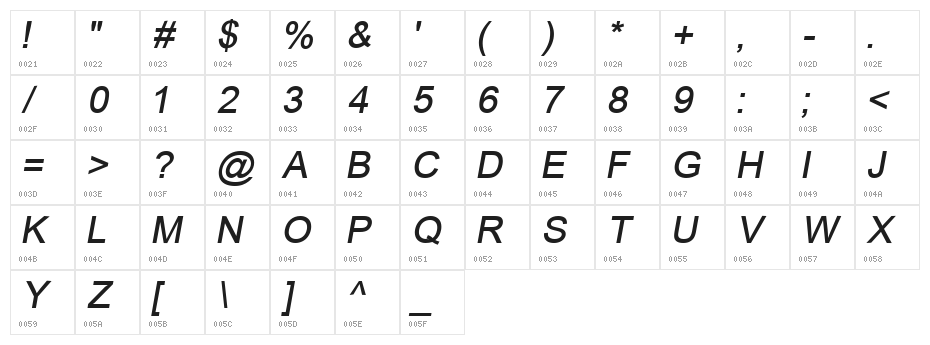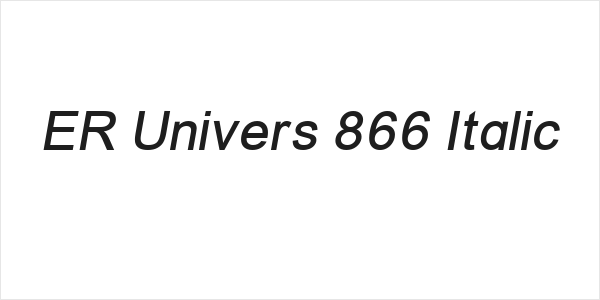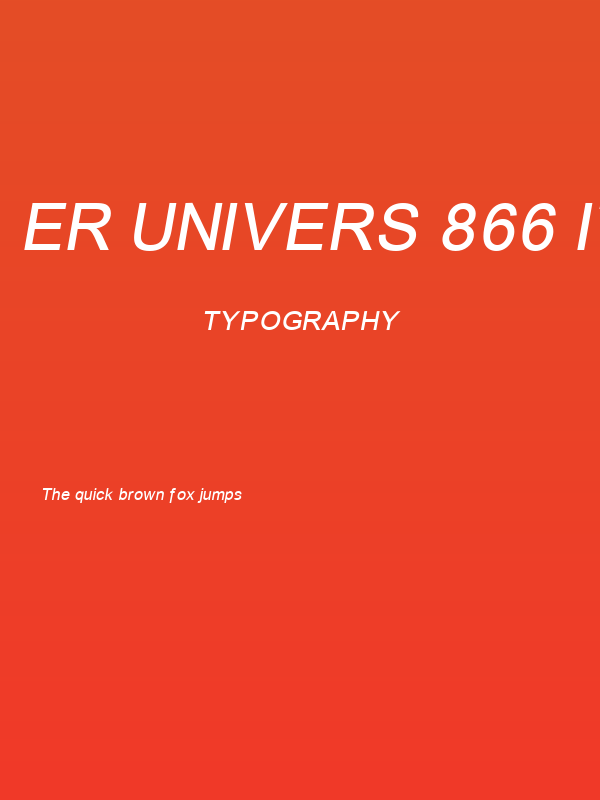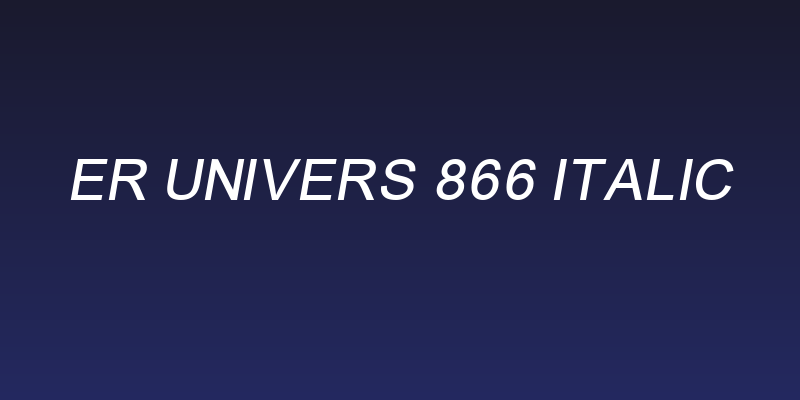
ER Univers 866 Italic Font
ER Univers 866 Italic Description
This font features a sleek and modern design with a slight italic slant, giving it a dynamic and forward-moving appearance. The characters are well-proportioned with a consistent stroke width, providing a clean and professional look. The uppercase and lowercase letters maintain a harmonious balance, while the numerals are clear and easy to read. The special characters are distinct and integrate seamlessly with the rest of the typeface. Overall, this font exudes a sense of elegance and sophistication, making it suitable for a variety of design applications.
| Proposed Projects | Ideal for branding, editorial design, advertising, and digital interfaces. |